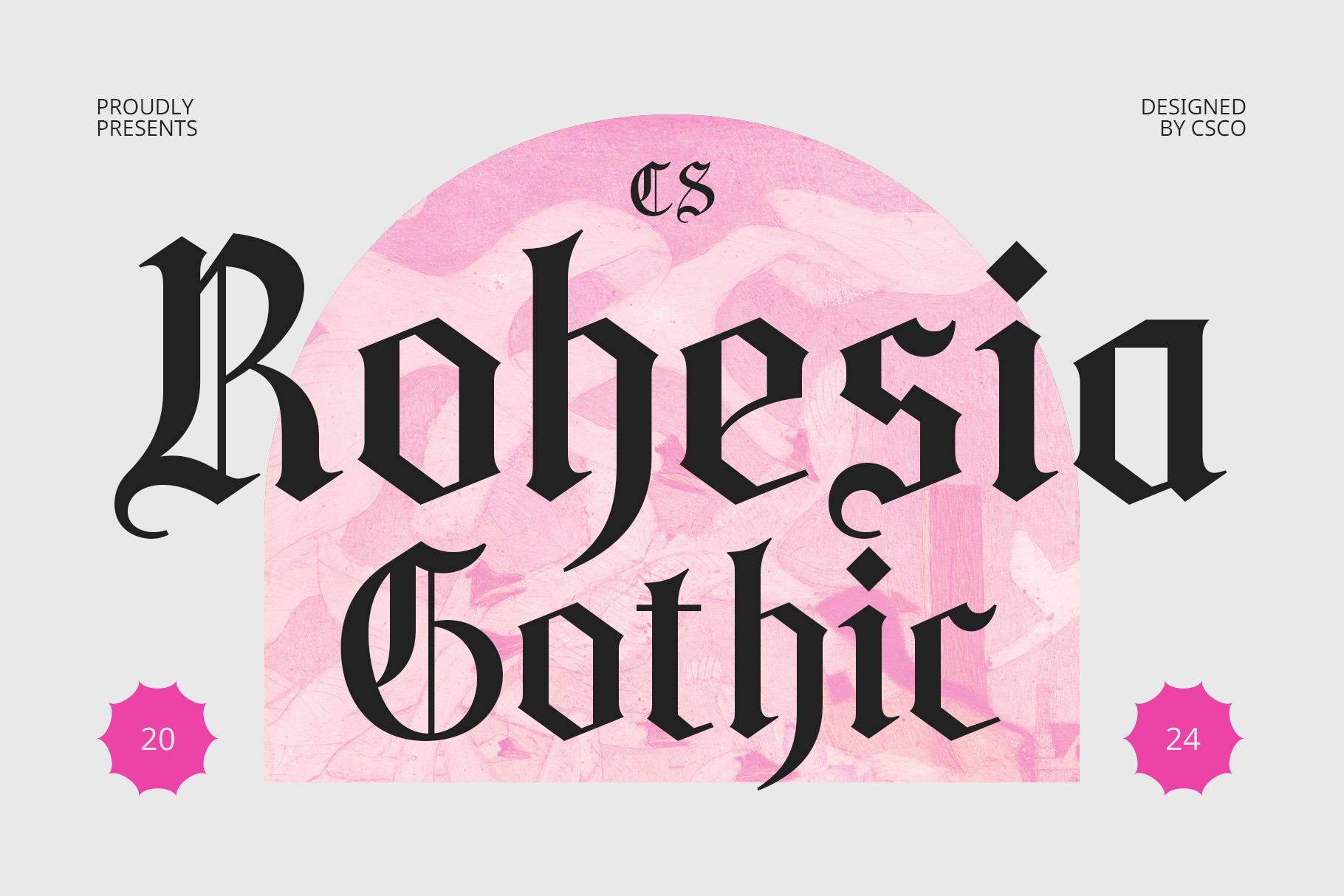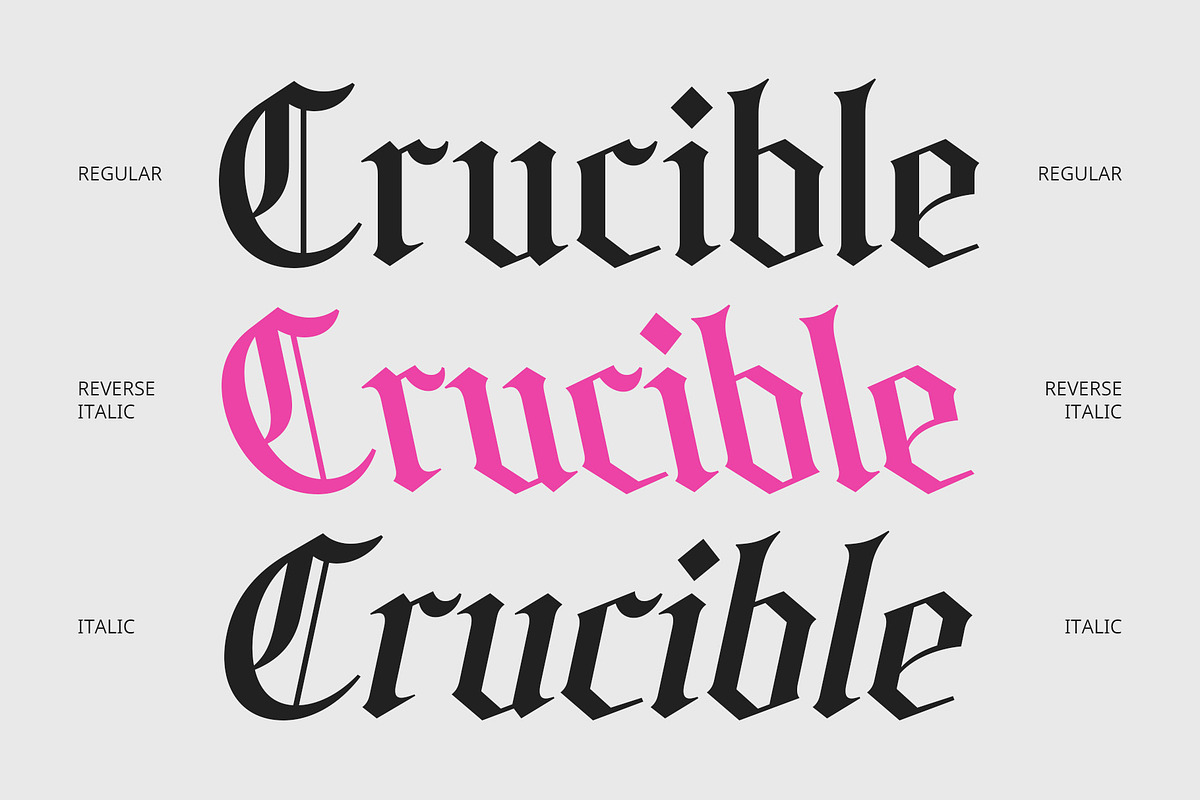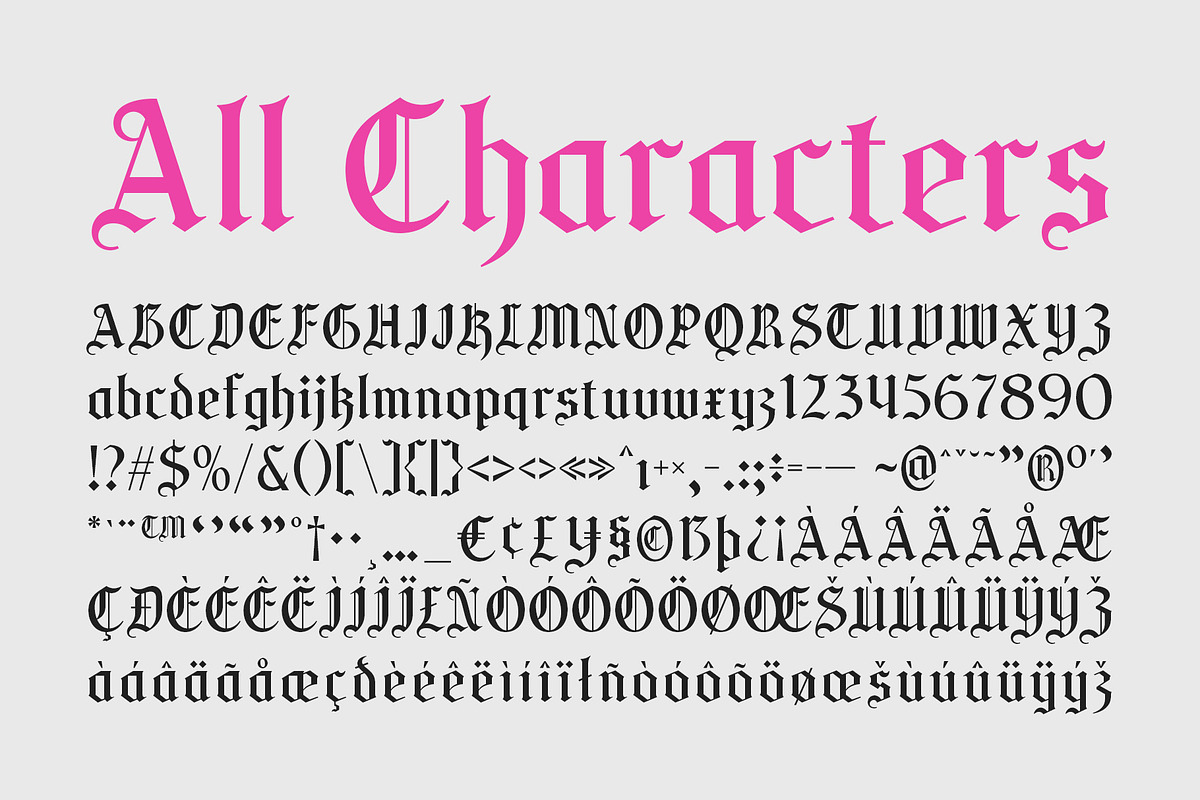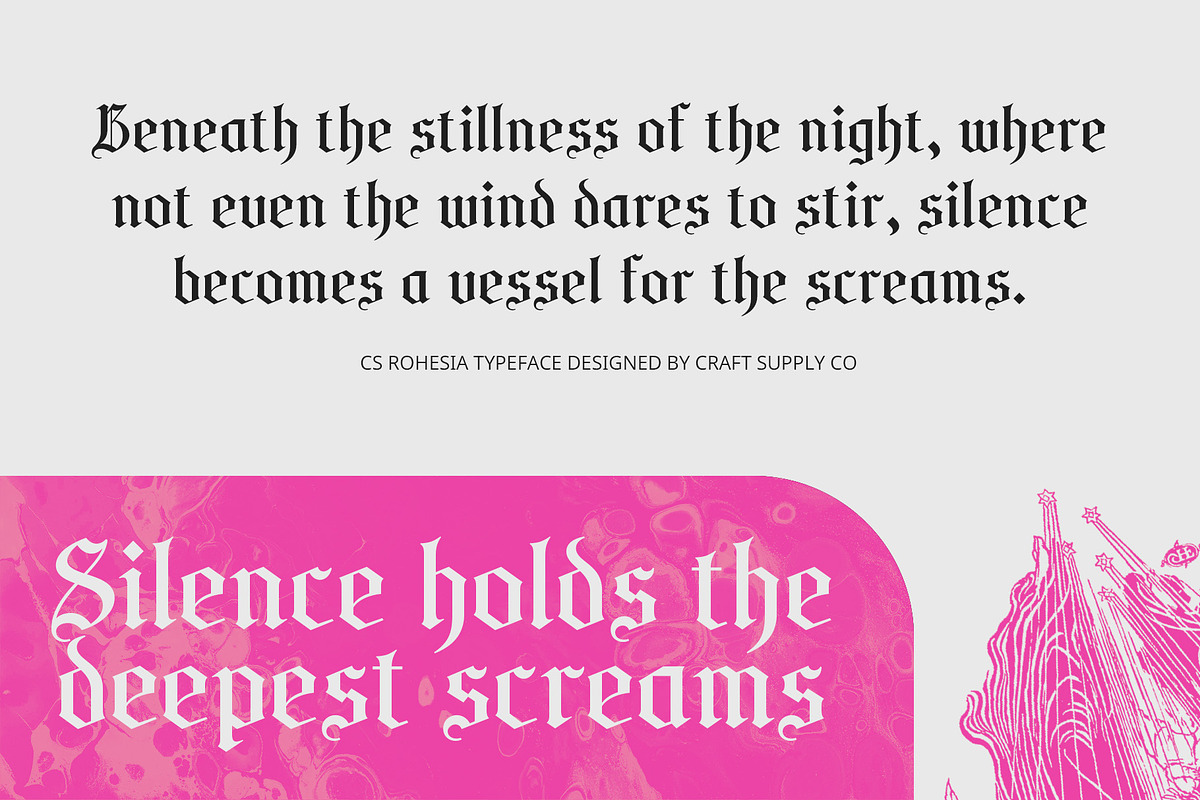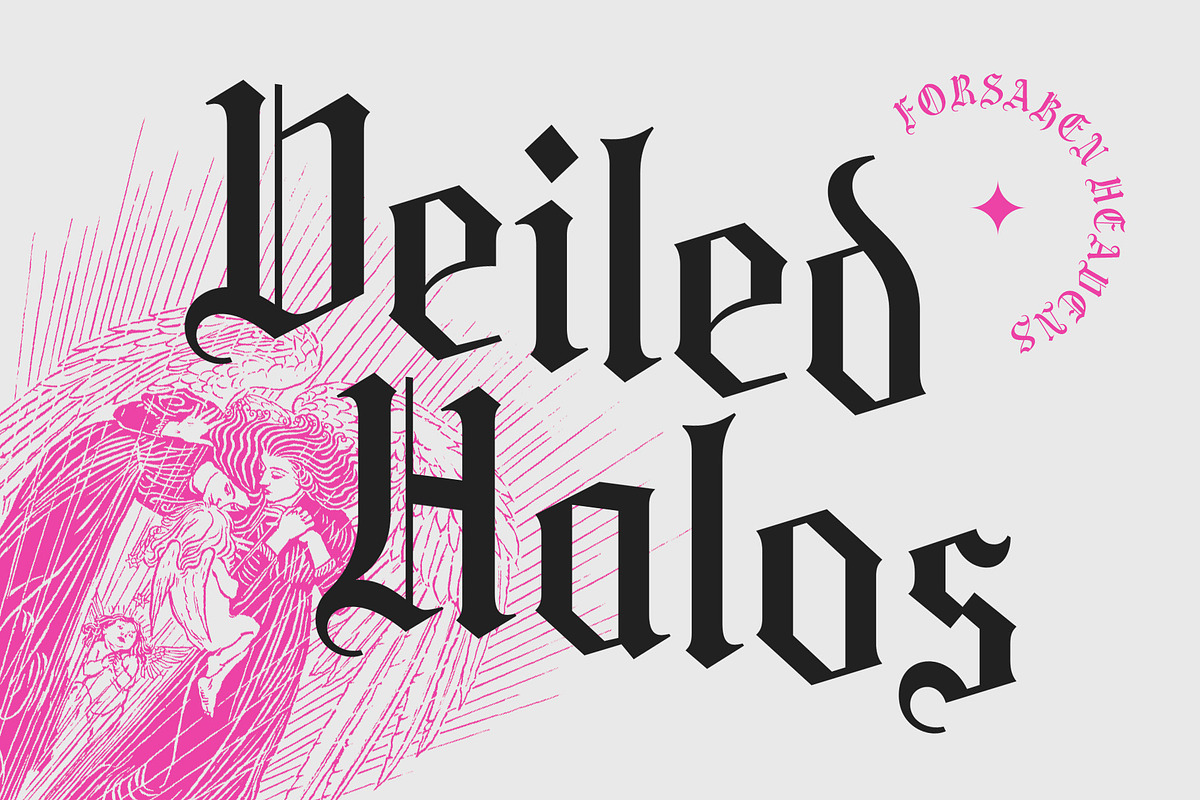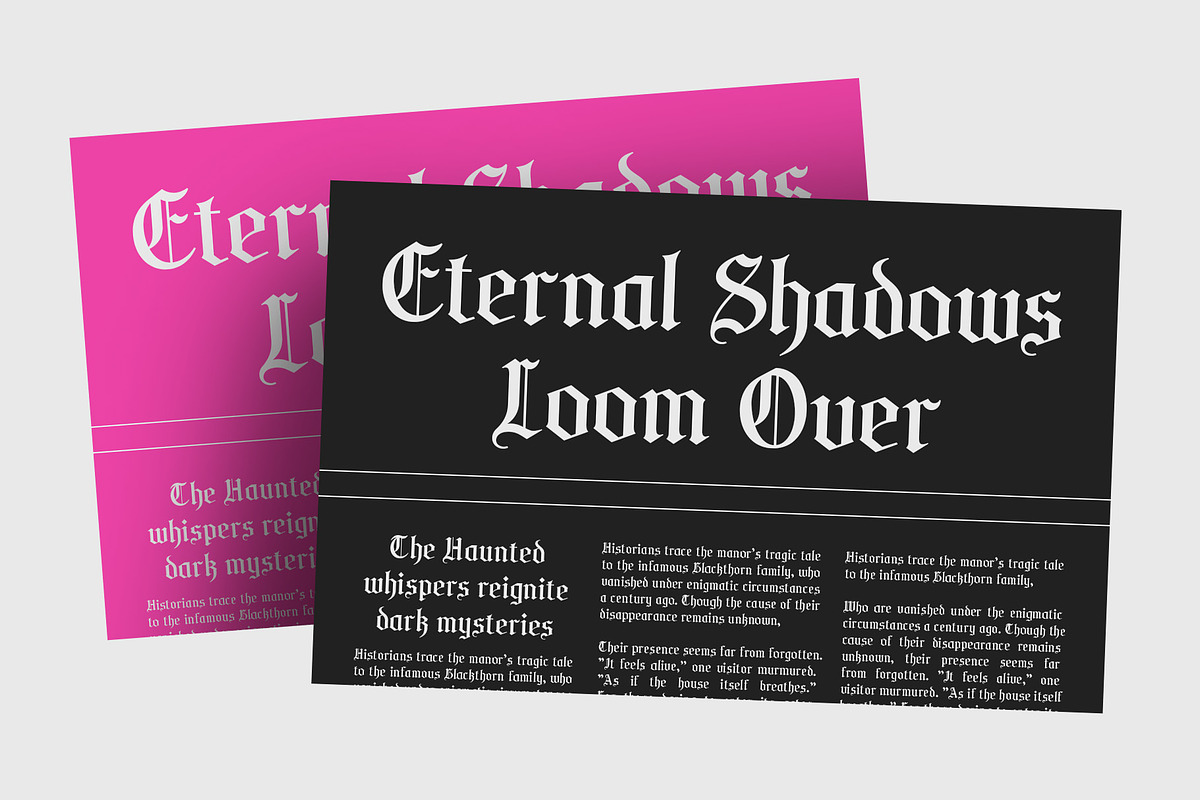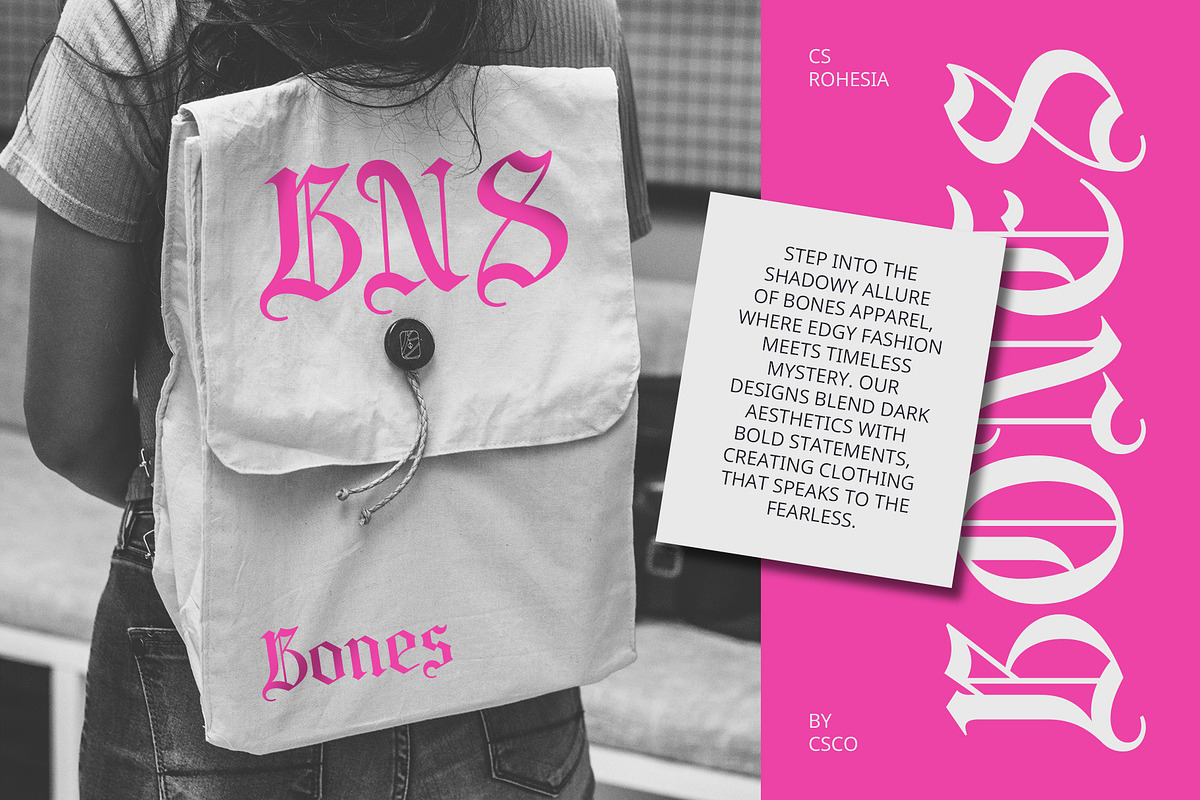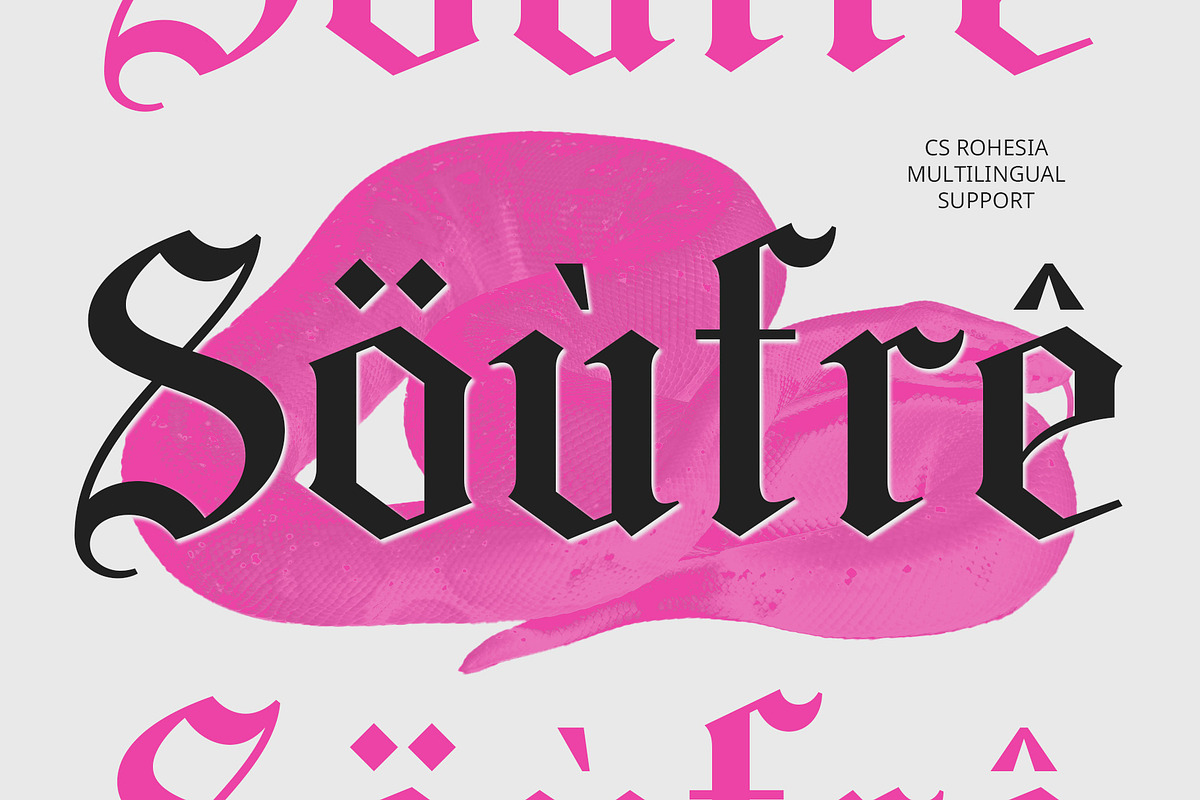
CS Rohesia – Gothic Font
CS Rohesia – Gothic Font: Elegance with a Bold Flair
An Ornate Design Rooted in Medieval Inspiration CS Rohesia is a striking display font that embodies the essence of Gothic artistry. Characterized by bold lines, sharp angles, and intricate details, it draws inspiration from the grandeur of medieval Gothic art and architecture. Its letterforms feature distinctive elements such as pointed arches, dramatic serifs, and ornamental flourishes, creating a design that is both captivating and rich in historical charm.
Elegance Meets Mystery and Authority This font is a harmonious blend of elegance, mystery, and commanding presence. The intricate detailing and bold structure evoke a sense of timeless sophistication while conveying an aura of power and intrigue. Whether for projects that require drama or a classic aesthetic, CS Rohesia effortlessly elevates designs with its refined yet bold character.
Versatility Across Creative Applications CS Rohesia is ideal for a wide range of creative projects. It excels in luxury branding, where its ornate qualities add a sense of exclusivity and opulence. It is also a standout choice for dramatic event posters, gothic-themed logos, and fantasy or horror book covers, where its commanding and atmospheric design leaves a lasting impression. Additionally, it’s a perfect fit for metal music posters, theatrical titles, or any project seeking to evoke the spirit of Gothic artistry.
- CS Rohesia Regular
- CS Rohesia Italic
- CS Rohesia Reverse Italic